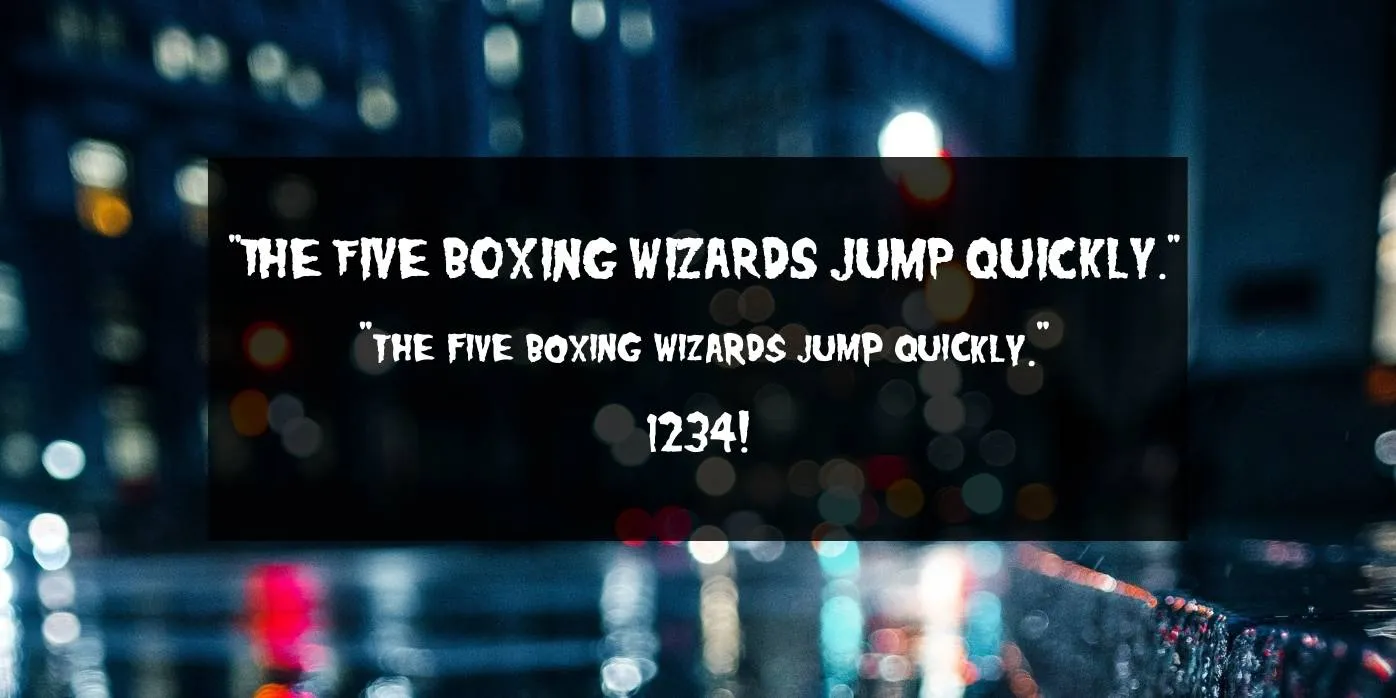
Misfits Font
Here, we present Misfits Font which belongs to the fancy font family. This typeface was developed by Rob Villareal a well-known designer. You can use this font for various purposes like headlines, titles, Stencil, banners, logos, etc. Misfits Font is a decorative typeface that was created for many projects.
This font is available in two different styles: regular and italic. This stunning font has been downloaded over 100,000 times and is currently one of the most popular fonts on the internet. It is specified for CSS. It is mostly used for Tattoo designs.